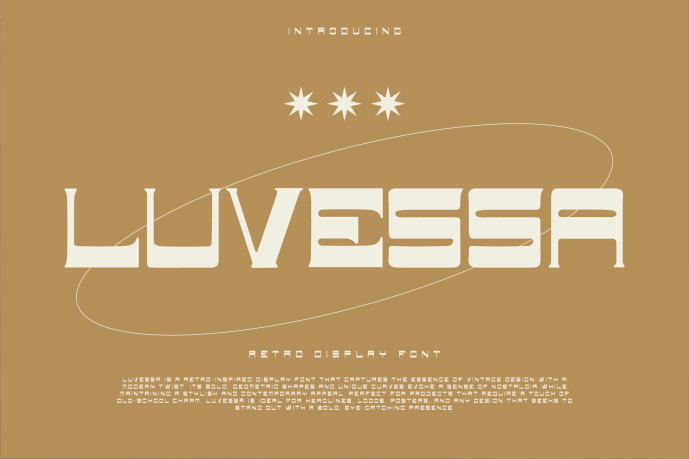
Luvessa Font
Designer: hihanstype
Luvessa Font is a retro-inspired display font that captures the essence of vintage design with a modern twist. Its bold, geometric shapes and unique curves evoke a sense of nostalgia while maintaining a stylish and contemporary appeal. Perfect for projects that require a touch of old-school charm, Luvessa is ideal for headlines, logos, posters, and any design that seeks to stand out with a bold, eye-catching presence.